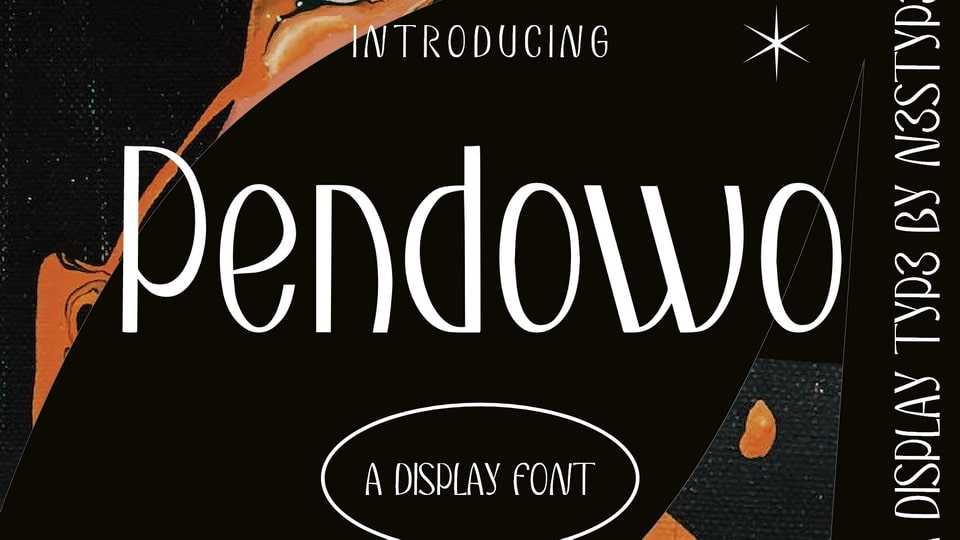
Download Pendowo font, a display typeface with beautiful curved shapes dancing with the flow. With a soft handcrafted touch and an even more artistic look, Pendowo font is perfect for use on posters, graphics, titles, publishing and product packaging.
Designer: Nestypefont